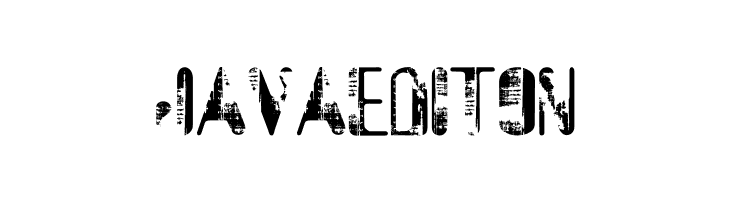
Prescriptivism Font
- Font: Prescriptivism
( Fonts by Fabrika De Typos - Marcio Hirosse - fabrikadetypos.blogspot.com )
A bold, distressed font with a grunge, industrial aesthetic.